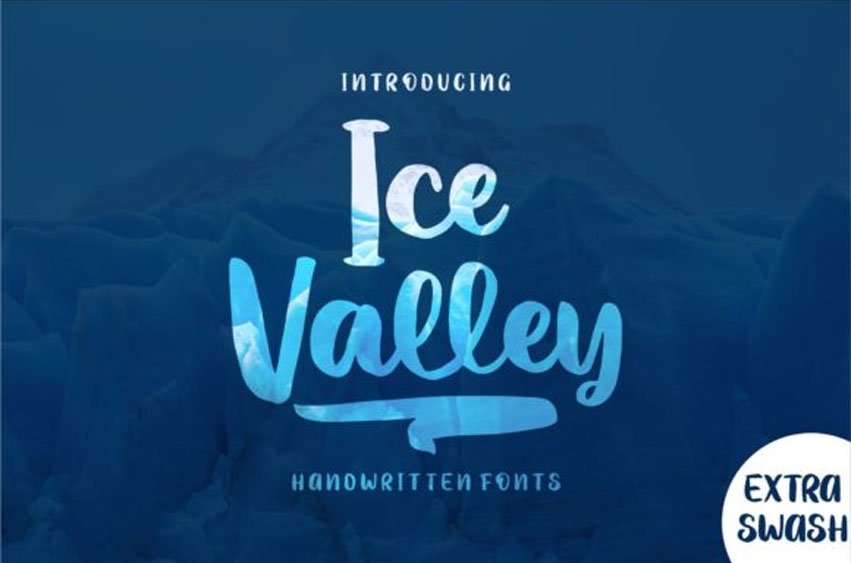
Ice Valley Font
Ice Valley Font Cool, playful and icy: Ice Valley is a fresh and modern handwritten font with a unique twist!
It is perfect for your upcoming projects.